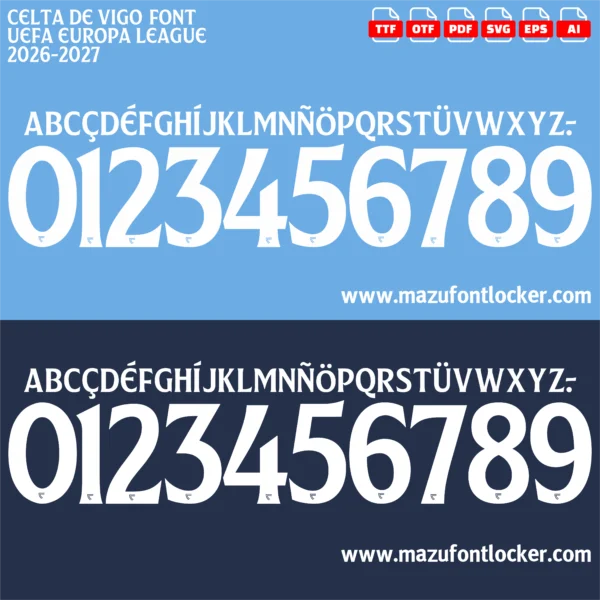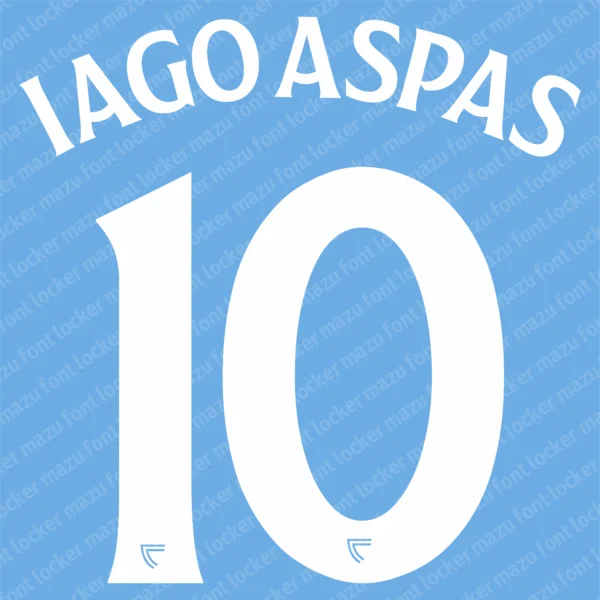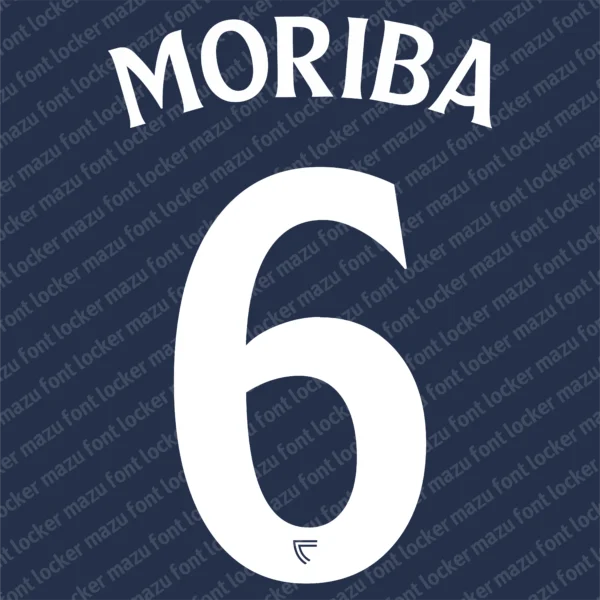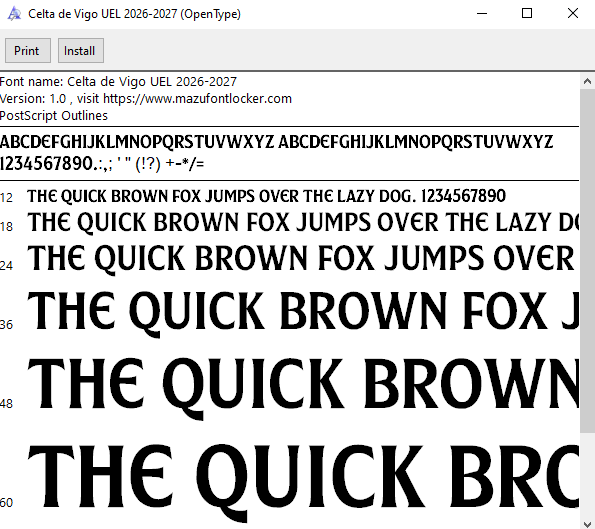
Celta de Vigo UEL 2026-2027 Font Vector – Stunning Celestes Masterpiece
This font captures the razor-sharp, thunderous lettering that embodies Celta de Vigo’s proud club identity, rich Spanish football heritage, iconic sky-blue tradition, and unstoppable fighting spirit — delivering premium quality and explosive energy for jersey mockups, football graphics, sports branding, and fan creations.
Celta de Vigo UEL 2026-2027 Font Vector – Celestes Europa League Heritage Typeface
The Celta de Vigo UEL 2026-2027 Font Vector is a premium typeface that accurately recreates the official match lettering worn by Celta de Vigo during their 2026-2027 UEFA Europa League campaign. This high-quality vector font kit captures the bold, clean, and instantly recognizable typography that perfectly complements the club’s iconic sky blue and white identity.
Designed for professional designers, football enthusiasts, and passionate Celta supporters, the Celta de Vigo UEL 2026-2027 Font Vector delivers exceptional authenticity for creating realistic jersey mockups, football merchandise, social media graphics, match posters, and custom fan artwork. Every character has been carefully recreated to match the powerful and precise visual style of one of Spain’s most historic and passionate football clubs.
This font stands out thanks to its precise vector construction and authentic club-inspired styling. Every letter and numeral has been meticulously recreated to match the official shirt lettering used throughout the 2026-2027 UEFA Europa League season and associated campaigns. Whether you’re producing professional kit templates or creating eye-catching football content, the Celta de Vigo UEL 2026-2027 Font Vector delivers a genuine match-ready appearance inspired by the proud identity of Os Celestes.
The lettering featured in the Celta de Vigo UEL 2026-2027 Font Vector combines clean geometric lines with powerful modern proportions. The result is a premium and highly readable typeface that reflects Celta de Vigo’s fighting spirit, attacking football, resilience, and proud Galician heritage.
- Complete uppercase A–Z alphabet and numbers 0–9 in authentic Celta de Vigo UEL 2026-2027 style
- Recreate the distinctive look of Celta de Vigo player names and squad numbers for creative projects
The Celta de Vigo UEL 2026-2027 Font Vector is an independently designed typeface package inspired by the official shirt lettering associated with the 2026-2027 UEFA Europa League campaign. It has been carefully recreated for football enthusiasts, graphic designers, collectors, and creators producing custom jersey concepts, football artwork, and fan-made projects. Please note that this is a fan-made design resource and is not an official product of Real Club Celta de Vigo, LaLiga, UEFA, or any associated organization.